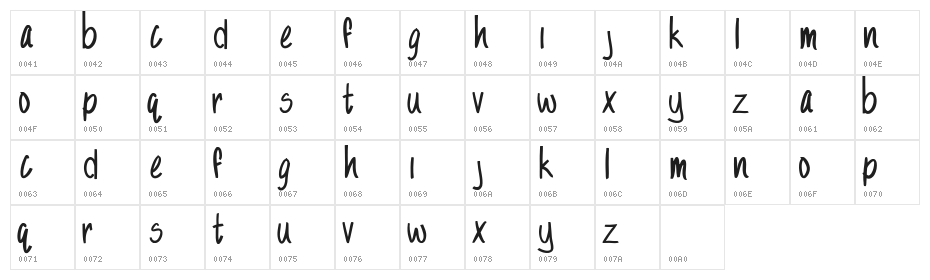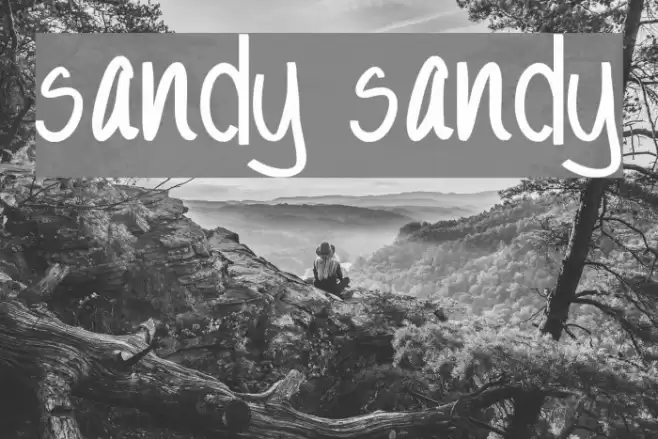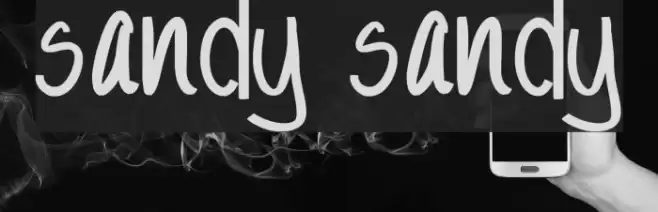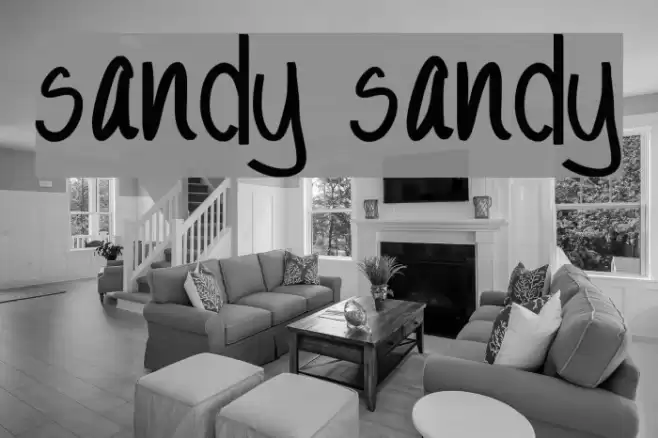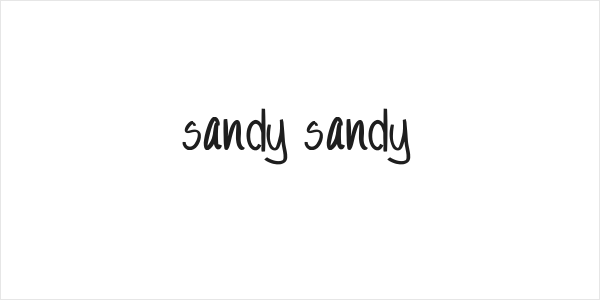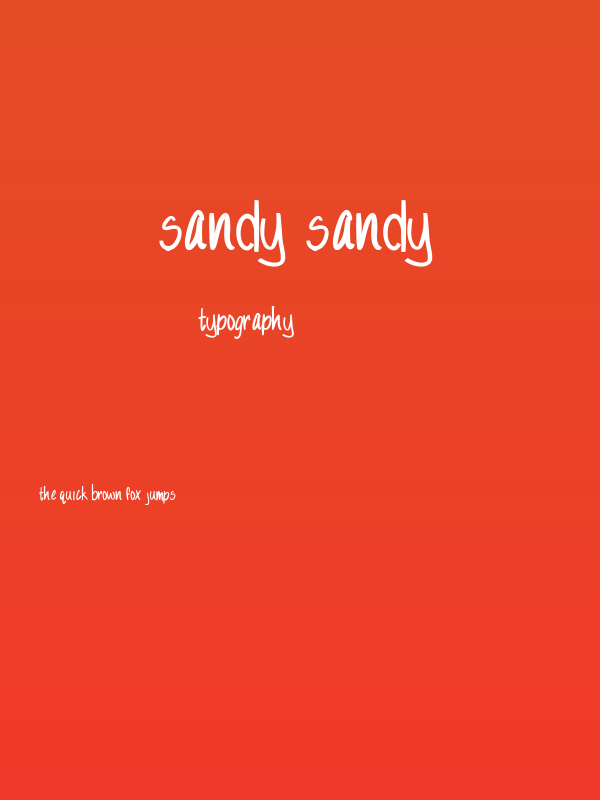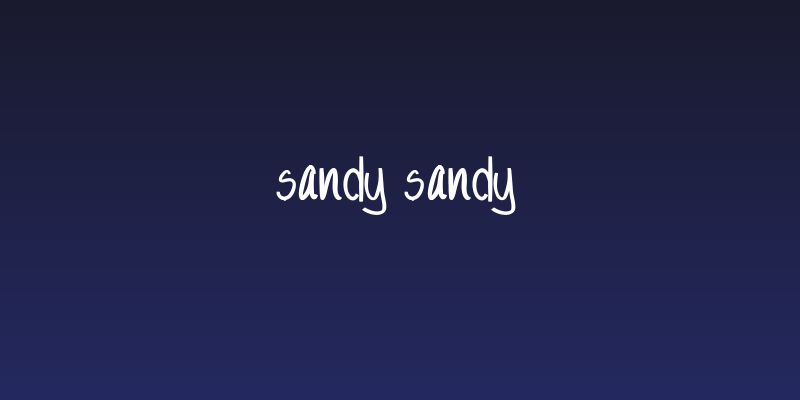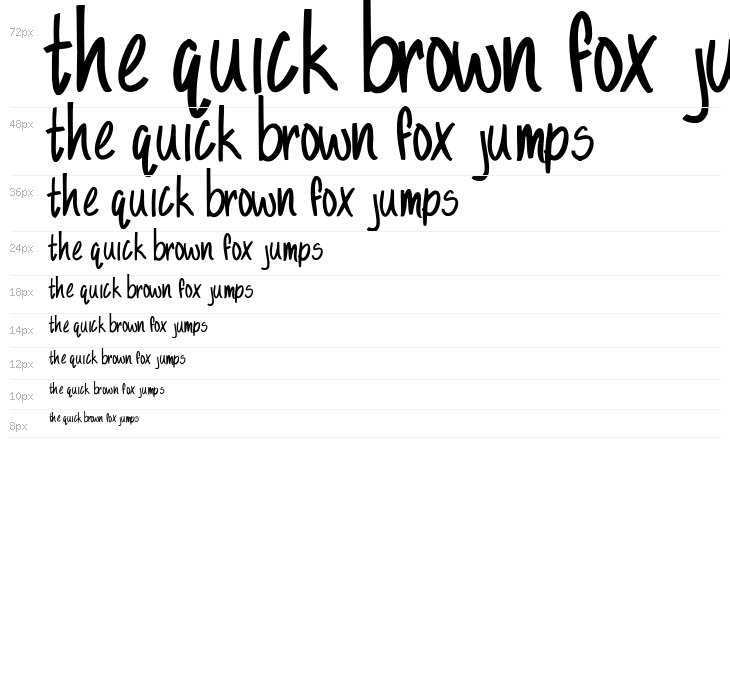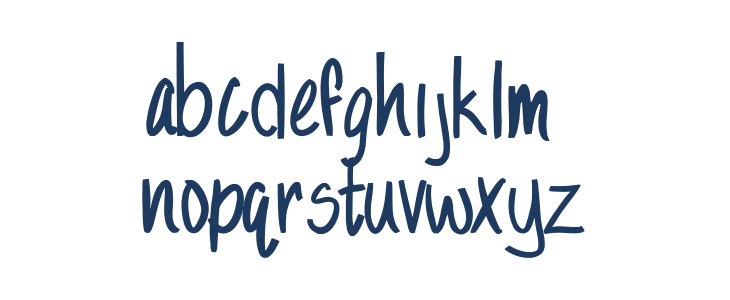
Sandy Sandy Font
Sandy Sandy Description
This font features a playful and casual handwritten style, characterized by its smooth, flowing lines and slightly irregular shapes. The letters have a natural, organic feel, with a slight slant that adds to its informal appearance. The strokes are consistent in width, providing a uniform look across all characters. The font maintains a good balance between readability and style, making it suitable for a variety of creative projects. Its unique charm lies in the subtle variations in letterforms, which give it a personal touch without compromising legibility.
| Proposed Projects | Ideal for greeting cards, invitations, personal branding, and creative social media graphics. |